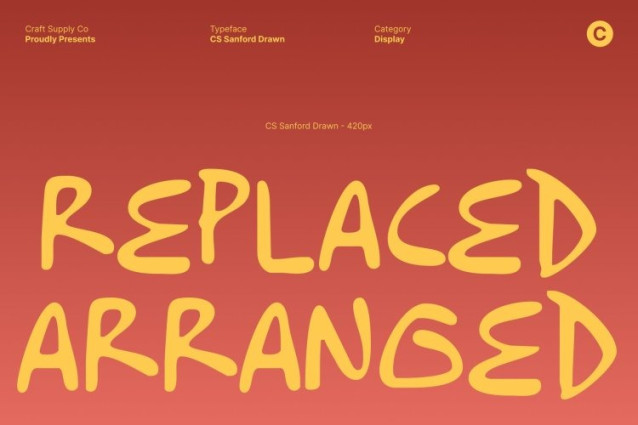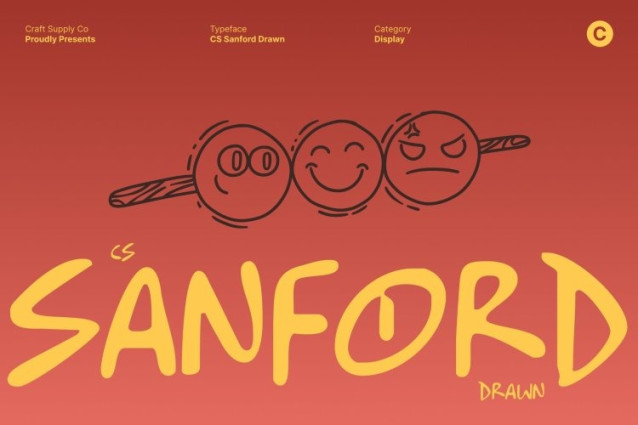
CS Sanford Drawn Font
CS Sanford Drawn Font This is a playful and expressive handwritten font that blends ink-style strokes with a clean sans serif foundation. Inspired by natural pen movements and marker-drawn textures, this font captures the charm of spontaneous handwriting while maintaining a clear and readable structure. Its slightly irregular details add warmth and authenticity to every word.
Natural Flow with Modern Simplicity
The font features a smooth, natural rhythm that reflects the effortless flow of hand-drawn lettering. Gentle curves and relaxed proportions give it a modern yet casual appearance, making it feel approachable and stylish. This balance makes it perfect for designs that need a friendly, laid-back tone without losing clarity.
Warm, Authentic, and Full of Character
Each character carries a hand-drawn quality that feels personal and genuine. The subtle ink and marker texture adds depth and personality, making designs feel more human and expressive. Whether used for personal branding, social media content, or creative invitations, this font delivers sincerity and artistic charm.
Perfect Balance of Creativity and Versatility
This font adapts beautifully across branding, stationery, editorials, and digital projects. Its combination of quirky handwritten form and natural drawn texture makes it a versatile choice for designers seeking warmth, creativity, and a modern handwritten flair.